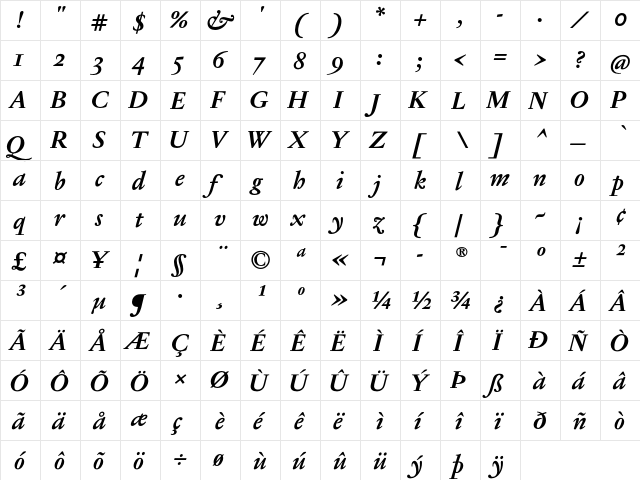
Jannon T Moderne OT Bold Italic
| Foundry | Frantisek Storm |
| Designer | Frantisek Storm |
Design Context for Jannon T Moderne OT Typeface
Jannon T Moderne OT is a composed and adaptable typeface that performs quietly and consistently across a wide range of design contexts. The dynamic lean of this cut emphasises speed and emphasis in any layout. The heavy weight commands attention and anchors typographic hierarchies.
Pro Tip: Use Jannon T Moderne OT for emphasis, pull quotes, and subheadings where its slanted energy can add rhythm to the layout.